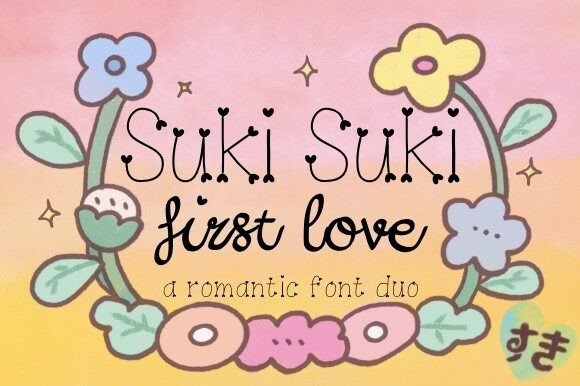
Take a step into the world of Suki Suki First Love, a captivating script font duo that invites you to embrace the magic of handwritten charm. Created with a touch of playful romance and a dash of sweetness, this extraordinary font pair is the perfect complement to your creative endeavors.
Step into the realm of artistic expression with Suki Suki First Love, where your words will dance with joy and elegance. Whether you're crafting enchanting greeting cards, designing posters that ignite the imagination, or creating headings that command attention, this font duo will transform your creations into masterpieces. Prepare to be captivated as Suki Suki First Love weaves its magic into every letter and word, adding a touch of romantic flair to your designs.
A perfect match for expressing heartfelt emotions, Suki Suki First Love finds its true calling in greeting cards. With its ability to convey warmth and affection, this font duo will make every message you write feel like a warm embrace. Imagine your loved ones' faces lighting up as they receive a card adorned with the beautiful strokes of Suki Suki First Love, carrying your heartfelt words in a truly unique and charming way.
Unleash the boundless creativity within you as you explore the versatility of Suki Suki First Love. Its enchanting form lends itself effortlessly to posters that captivate and inspire. From whimsical illustrations to thought-provoking quotes, this font duo will elevate your designs to new heights. Prepare to witness your posters come alive with captivating messages, each letter dancing harmoniously to create visual masterpieces that leave a lasting impression.
Suki Suki First Love's enchanting presence extends to headings, transforming ordinary text into captivating focal points. Whether adorning blog posts, website banners, or social media graphics, this font duo will command attention and leave a lasting impression on your audience. Experience the power of words as they take on a life of their own, drawing readers into your content and inviting them to explore the depths of your creativity.